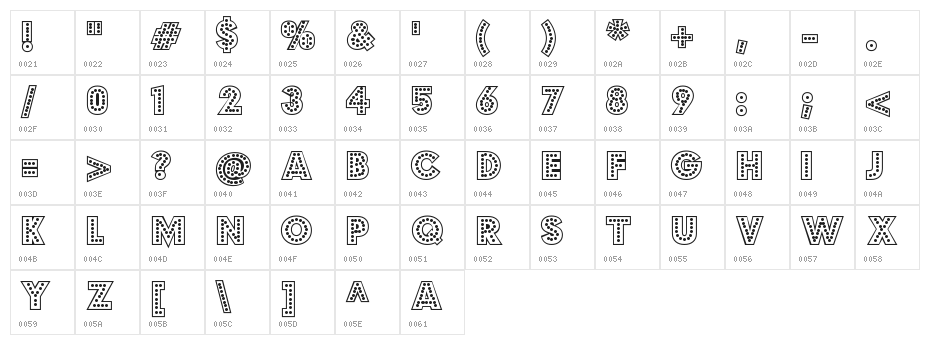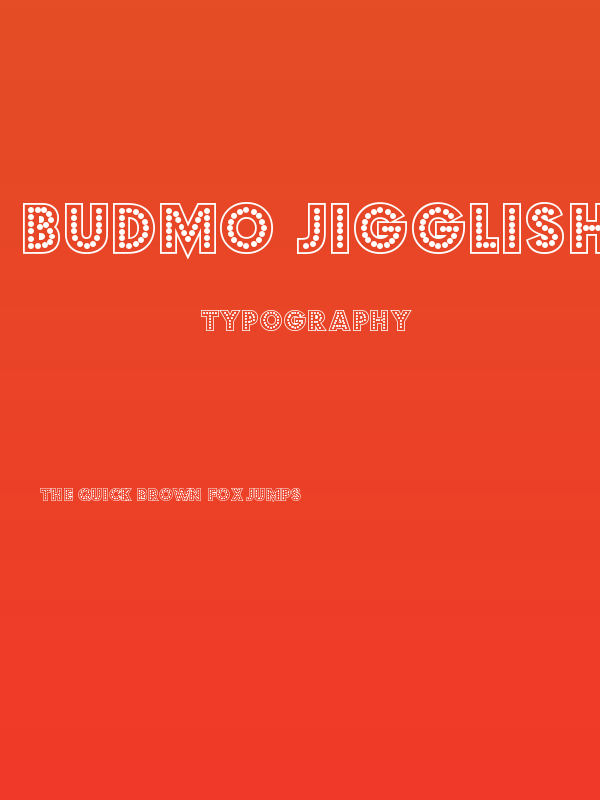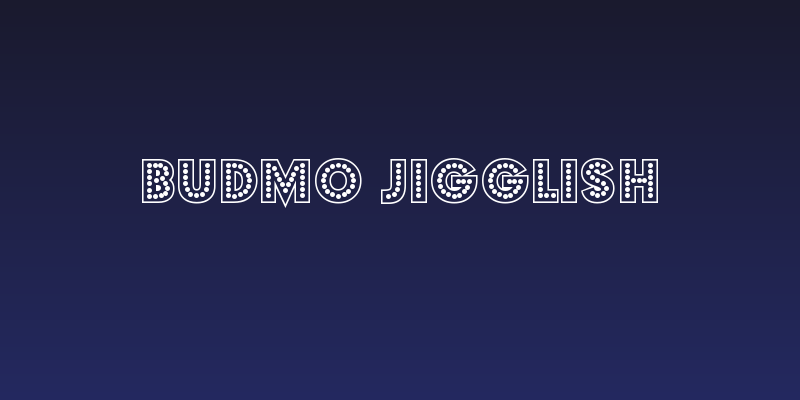
Budmo Jigglish Font
Budmo Jigglish Description
This font features a bold, decorative style with a unique dotted pattern inside each character, reminiscent of marquee lights or carnival signage. The uppercase and lowercase letters maintain a consistent design, with each character outlined in a thick black border that enhances its visibility and impact. The numbers and special characters follow the same dotted theme, ensuring a cohesive look across all glyphs. This font's playful and eye-catching design makes it ideal for projects that require a fun and lively aesthetic.
| Proposed Projects | Ideal for event posters, party invitations, circus-themed designs, and any project needing a playful, eye-catching font. |